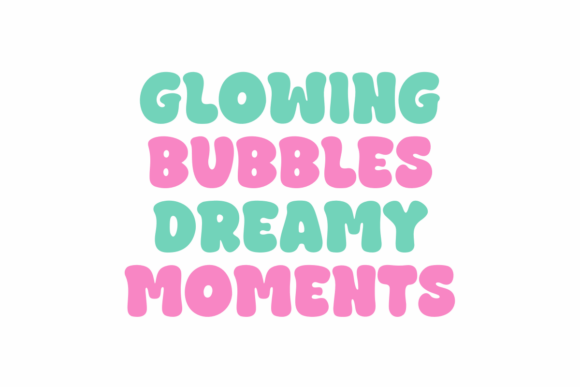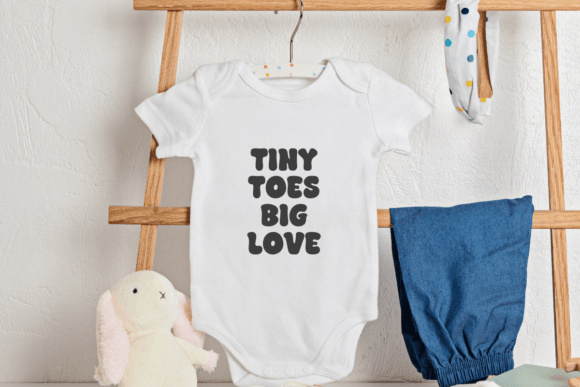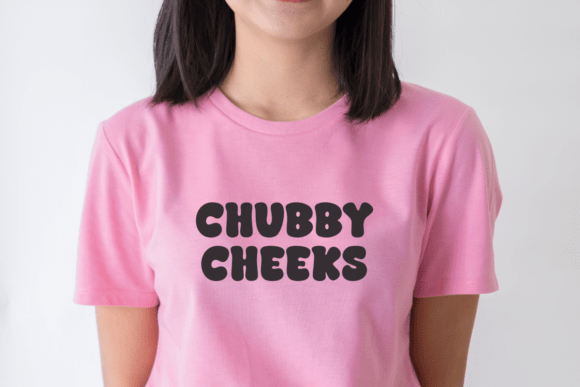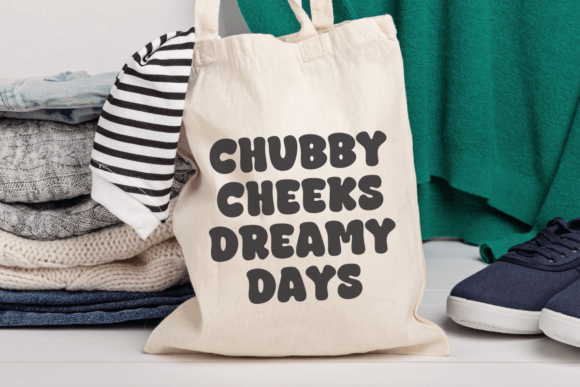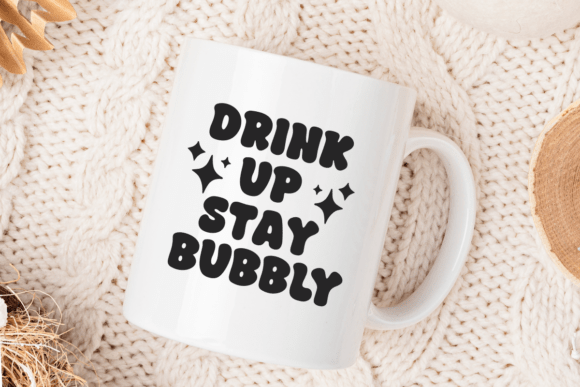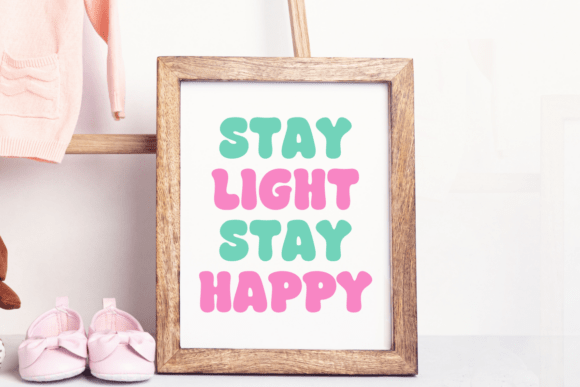
Bubble Sorbet Font: Add a Touch of Whimsy to Your Creations
Are you looking for a font that can add a dash of fun and playfulness to your designs? Look no further than the charming Bubble Sorbet font! This handmade bubble font is perfect for crafters and designers who want to infuse their projects with a sense of innocence and joy. In this article, we’ll explore the features and benefits of Bubble Sorbet, and show you how to make the most of this delightful font.
What is Bubble Sorbet Font?
Bubble Sorbet is a whimsically designed, handmade bubble font that is perfect for a variety of crafting applications. Its playful shape is ideal for adding a spark of fun to quotes, branding, and everyday items. With Bubble Sorbet, you can create unique and eye-catching designs that are sure to delight.
Features of Bubble Sorbet Font
- Handmade with love: Bubble Sorbet is a carefully crafted font that is made with love and attention to detail. Its handmade nature gives it a unique and personal touch that is hard to find in digital fonts.
- Whimsical design: The bubble shape of the font is playful and fun, making it perfect for designs that require a lighthearted touch.
- Versatile: Bubble Sorbet can be used for a wide range of crafting applications, from t-shirts to greeting cards, wall hangings to key chains.
Uses of Bubble Sorbet Font
Bubble Sorbet is a versatile font that can be used for a variety of projects, including:
- T-shirts and apparel: Add a playful touch to your t-shirts, hoodies, and other apparel with Bubble Sorbet.
- Greeting cards and invitations: Create unique and eye-catching greeting cards and invitations with this charming font.
- Wall hangings and decor: Use Bubble Sorbet to create fun and playful wall hangings, signs, and other decorative items.
- Key chains and accessories: Add a touch of whimsy to your key chains, tote bags, and other accessories with this delightful font.
- Branding and packaging: Use Bubble Sorbet to add a playful touch to your branding and packaging.
Benefits of Using Bubble Sorbet Font
There are many benefits to using Bubble Sorbet font in your designs, including:
- Adds a touch of whimsy: Bubble Sorbet adds a playful and lighthearted touch to your designs, making them more engaging and fun.
- Unique and eye-catching: This font is sure to stand out in a crowd, making your designs more noticeable and memorable.
- Easy to read: Despite its playful shape, Bubble Sorbet is easy to read, making it perfect for quotes, branding, and other text-based designs.
- Versatile: This font can be used for a wide range of projects, making it a great addition to your design toolkit.
Tips for Using Bubble Sorbet Font
Here are a few tips for getting the most out of Bubble Sorbet font:
- Use it sparingly: While Bubble Sorbet is a fun and playful font, it can be overwhelming if used too much. Use it sparingly to add a touch of whimsy to your designs.
- Experiment with colors: Bubble Sorbet looks great in a variety of colors, so don’t be afraid to experiment and find the perfect hue for your design.
- Pair it with other fonts: Bubble Sorbet pairs well with other fonts, so try combining it with a serif or sans-serif font to create a unique and interesting design.
In conclusion, Bubble Sorbet font is a charming and whimsically designed font that is perfect for crafters and designers who want to add a touch of fun and playfulness to their projects. With its handmade nature, playful shape, and versatility, Bubble Sorbet is sure to become a favorite in your design toolkit. So why not give it a try and see the magic it can bring to your designs?